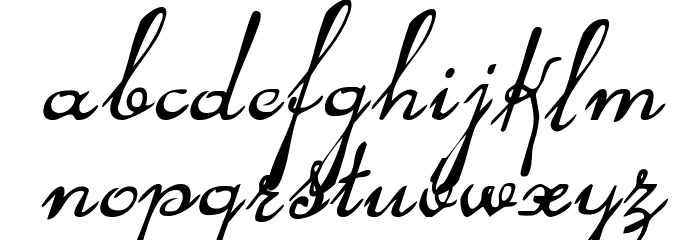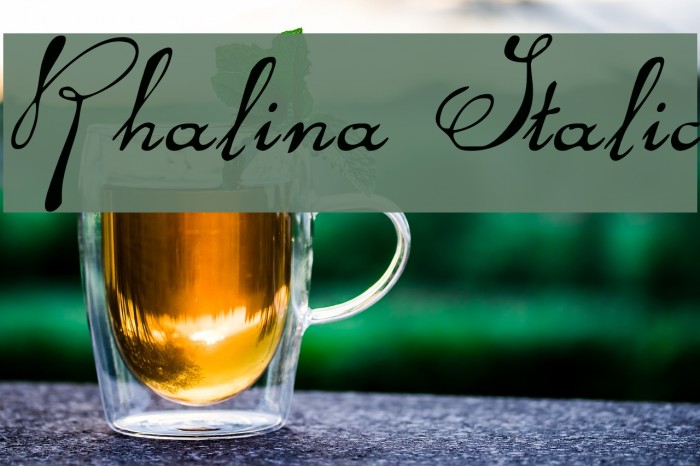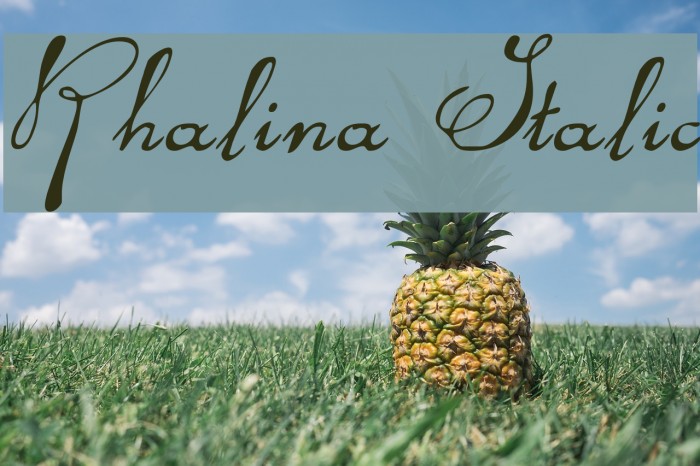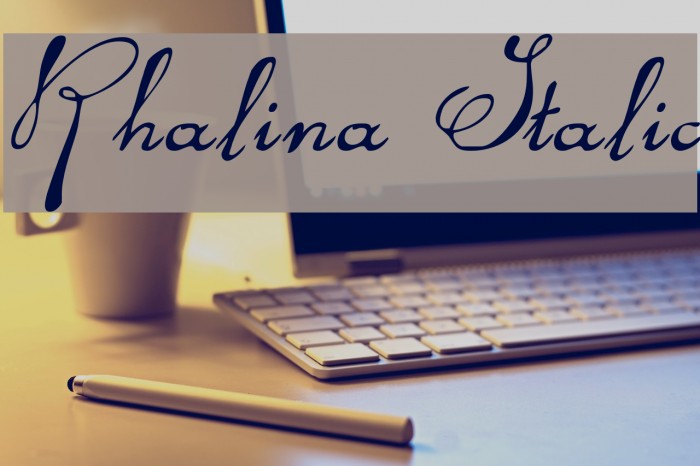
Rhalina Italic Font
This font features an elegant and flowing script style, characterized by its cursive and italicized letterforms. The uppercase letters exhibit a graceful loop and swirl, giving a sophisticated and artistic appearance. The lowercase letters maintain a consistent flow, enhancing readability while preserving the decorative nature. Numbers and special characters are designed with the same fluidity, ensuring a cohesive look across all text. The overall design is reminiscent of classic calligraphy, making it suitable for formal and creative applications.
An elegant, flowing script font with a classic calligraphic style.
- Proposed Projects: Ideal for wedding invitations, greeting cards, branding, and elegant logo designs.
- Category: Script
- Overall Style: Classic
- Use Case: Logos, Invitations, Decorative text